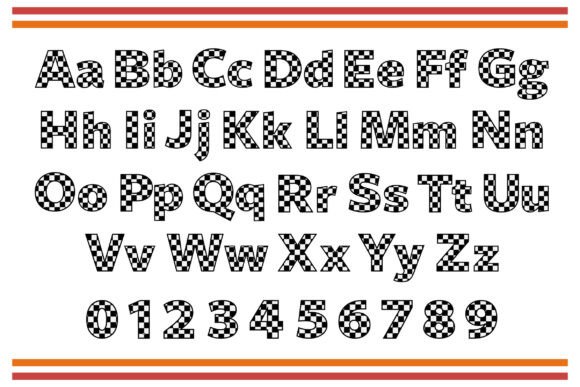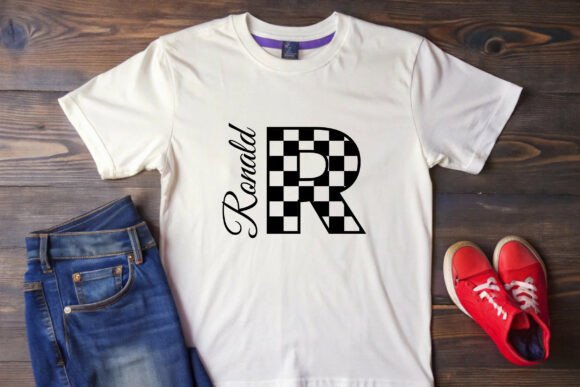
Unleash Your Creativity with Checkered Font: The Ultimate Display Font for High-Octane Designs
Are you looking for a font that can add a touch of high-speed excitement to your designs? Look no further than Checkered, a bold and geometric display font that’s perfect for automotive branding, motor sports event posters, arcade-style gaming interfaces, and edgy streetwear. In this article, we’ll explore the features and benefits of Checkered Font, and show you how to use it to create stunning designs that will leave your audience breathless.
The Inspiration Behind Checkered Font
Checkered Font is inspired by the classic black-and-white racing flag pattern that’s synonymous with speed and competition. Each character in the font is filled with this iconic pattern, giving your designs an instant boost of adrenaline and energy. Whether you’re designing for a local karting track or a global racing series, Checkered Font is the perfect choice for creating typography that captures the heritage and excitement of the racetrack.
Key Features of Checkered Font
- Bold and Geometric Design: Checkered Font features bold, geometric characters that are designed to make a statement. The font’s sleek lines and sharp edges give it a modern and edgy feel that’s perfect for high-octane designs.
- Classic Racing Flag Pattern: Each character in the font is filled with a classic black-and-white racing flag pattern, adding a touch of nostalgia and heritage to your designs.
- High-Velocity Impact: Checkered Font is designed to make an impact. Its bold design and dynamic pattern make it perfect for creating eye-catching typography that will leave your audience breathless.
- Versatile and Customizable: Checkered Font is a versatile font that can be used for a wide range of design projects. You can customize the font to fit your brand’s style, and use it to create stunning designs that will leave a lasting impression.
Use Cases for Checkered Font
Checkered Font is perfect for a wide range of design projects, including:
- Automotive Branding: Use Checkered Font to create bold and eye-catching logos, advertisements, and marketing materials for your automotive brand.
- Motor Sports Event Posters: Create stunning posters and flyers for motor sports events, including racing series, karting tournaments, and car shows.
- Arcade-Style Gaming Interfaces: Use Checkered Font to create high-energy interfaces for arcade-style games, including racing games, sports games, and action games.
- Edgy Streetwear: Add a touch of high-octane style to your streetwear designs with Checkered Font. Use it to create bold and eye-catching logos, labels, and packaging.
Tips and Tricks for Using Checkered Font
Here are some tips and tricks for using Checkered Font to create stunning designs:
- Experiment with Different Colors: While the classic black-and-white racing flag pattern is iconic, don’t be afraid to experiment with different colors to create a unique look.
- Use it as a Statement Piece: Checkered Font is designed to make a statement. Use it as a statement piece in your designs, and balance it with simpler fonts to create visual interest.
- Play with Texture and Patterns: Add an extra layer of depth and interest to your designs by playing with texture and patterns. Use Checkered Font to create a bold and eye-catching background, and add texture and patterns to give it a more dynamic look.
| Author | turz74347 |
Checkered Font is a high-velocity display font that’s perfect for designers and crafters who want to add a touch of high-octane excitement to their designs. With its bold and geometric design, classic racing flag pattern, and versatile customization options, Checkered Font is the ultimate choice for creating stunning designs that will leave your audience breathless. So why wait? Cross the finish line in style with Checkered Font, and take your designs to the next level.